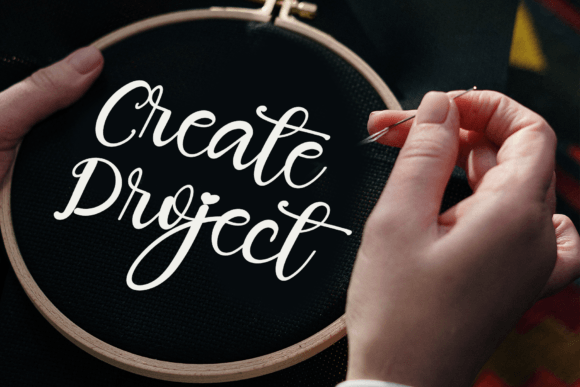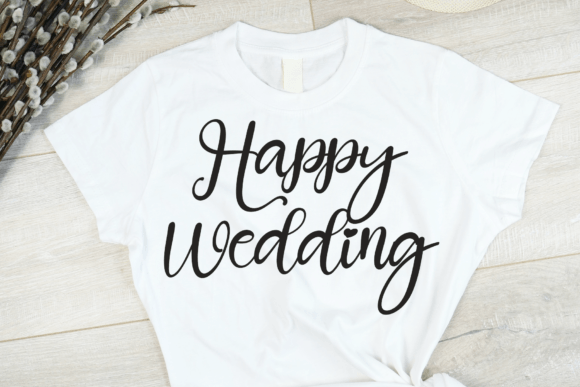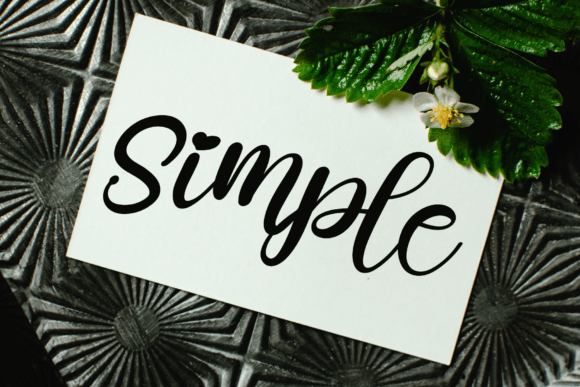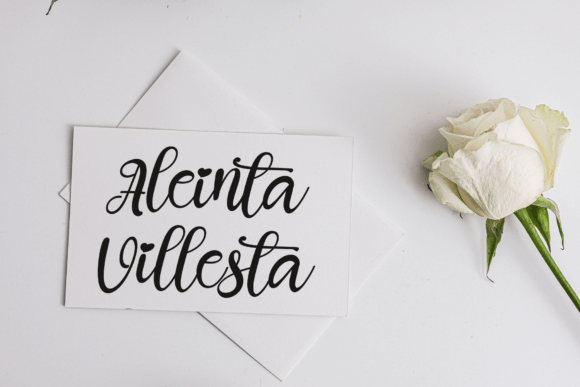
When Words Become Works of Art
You know that moment when a single font can elevate an entire project from ordinary to extraordinary? It’s the spark that ignites your creativity, making you wonder how you ever managed without it. For designers, finding that perfect font can be a game-changer. And that’s exactly what we’re about to introduce you to – a game-changer in the world of typography.
Meet Heart Font, a stunning handwritten font that combines the elegance of classic calligraphy with a modern twist. Its balanced and varied style is designed to add a touch of sophistication to any project, from posters to invitations, and everything in between.
With Heart Font, you’ll have access to a world of creative possibilities. PUA encoded, this font allows you to tap into its full potential, unlocking a treasure trove of glyphs and ligatures that will take your designs to the next level.
Key Features of “Heart Font”
- Font Style: A unique, hand-drawn font with a romantic and whimsical feel.
- Character Set: Includes a wide range of characters, including uppercase and lowercase letters, numbers, and punctuation marks.
- Language Support: Supports multiple languages, including English, Spanish, French, and many more.
Heart Font Review
As a designer, I was excited to try out the Heart Font, but my experience was a mixed bag. Here’s what I thought.
- The Heart Font is incredibly unique and eye-catching, making it perfect for designs that need a little extra flair.
- The font is highly customizable, with a wide range of styles and sizes available.
- It’s great for creating a sense of warmth and playfulness in your designs.
- The font can be overwhelming if used in large quantities or as the primary text font.
- Some characters may not be as refined as others, which can affect readability.
- It may not be suitable for formal or professional designs.
Overall, I think the Heart Font is a great addition to any designer’s toolkit, but it’s best used in moderation. With a little creativity and restraint, it can add a lot of personality to your designs. Just be mindful of its limitations and use it wisely.
Use the Heart Font to create eye-catching headings and titles.
The Heart Font is ideal for:
Valentine’s Day and love-themed designs.